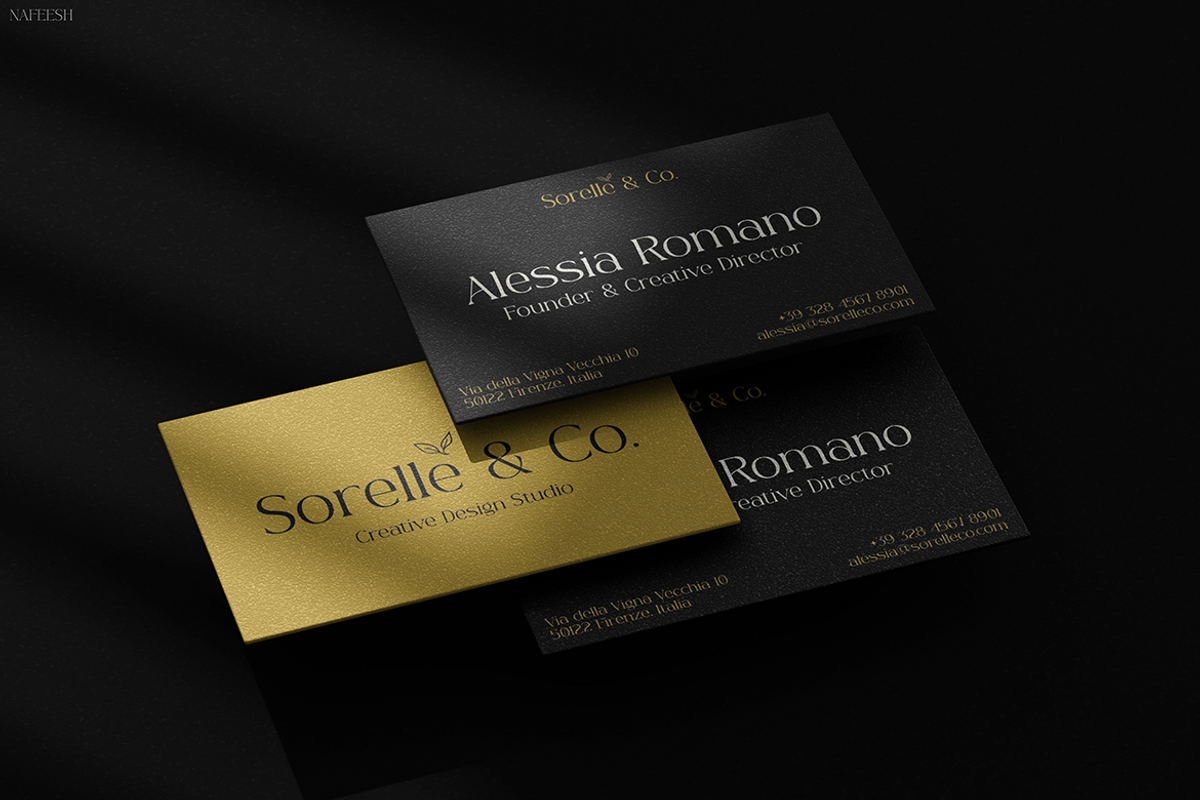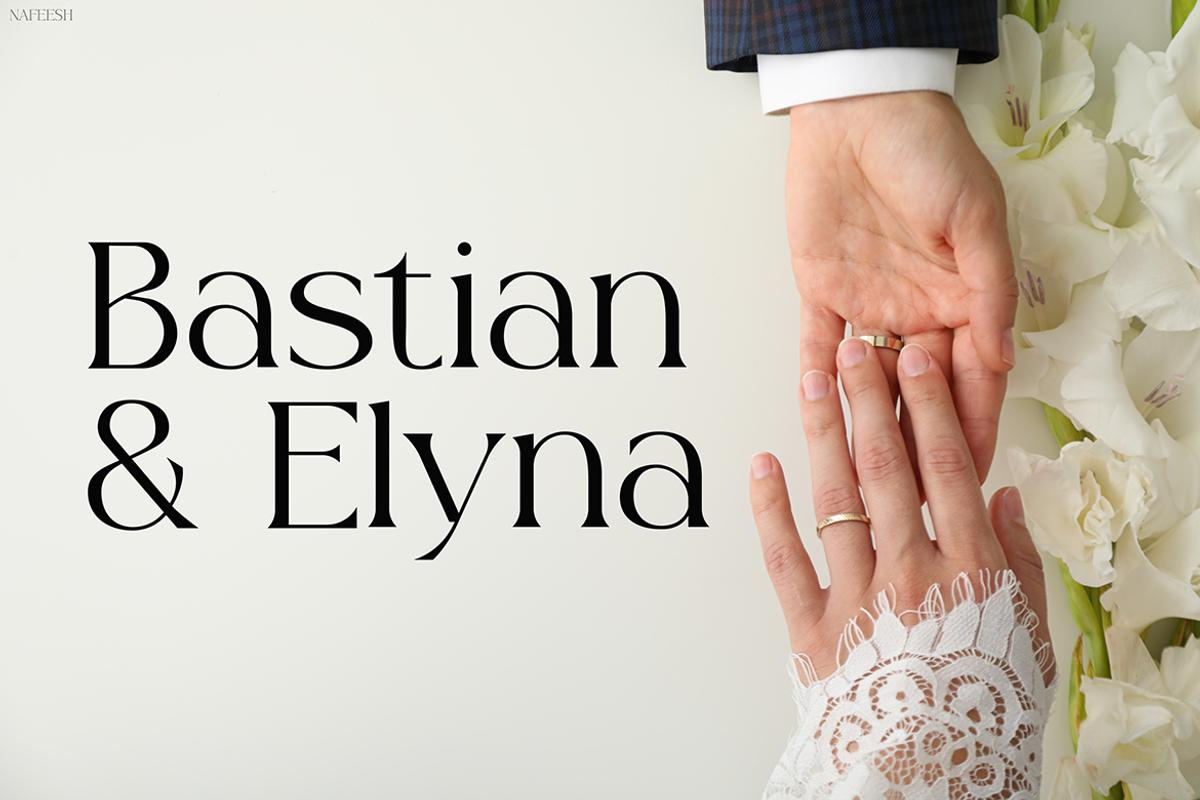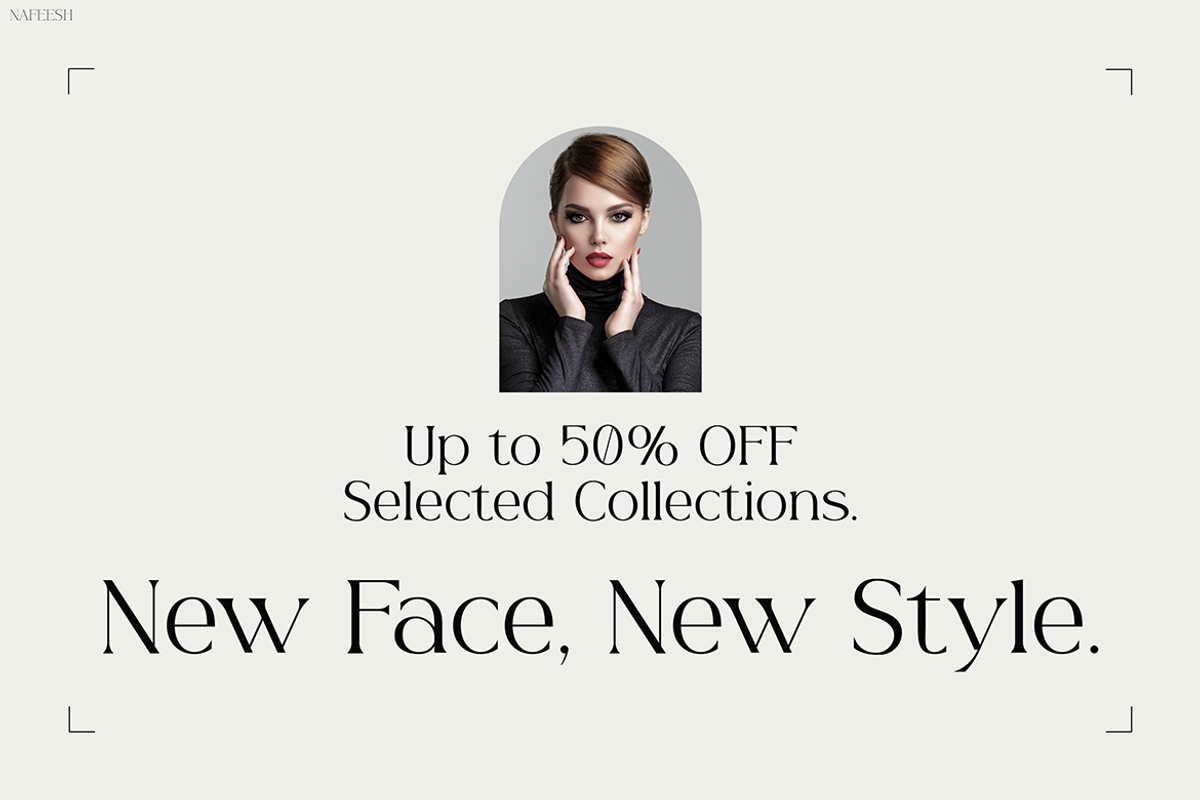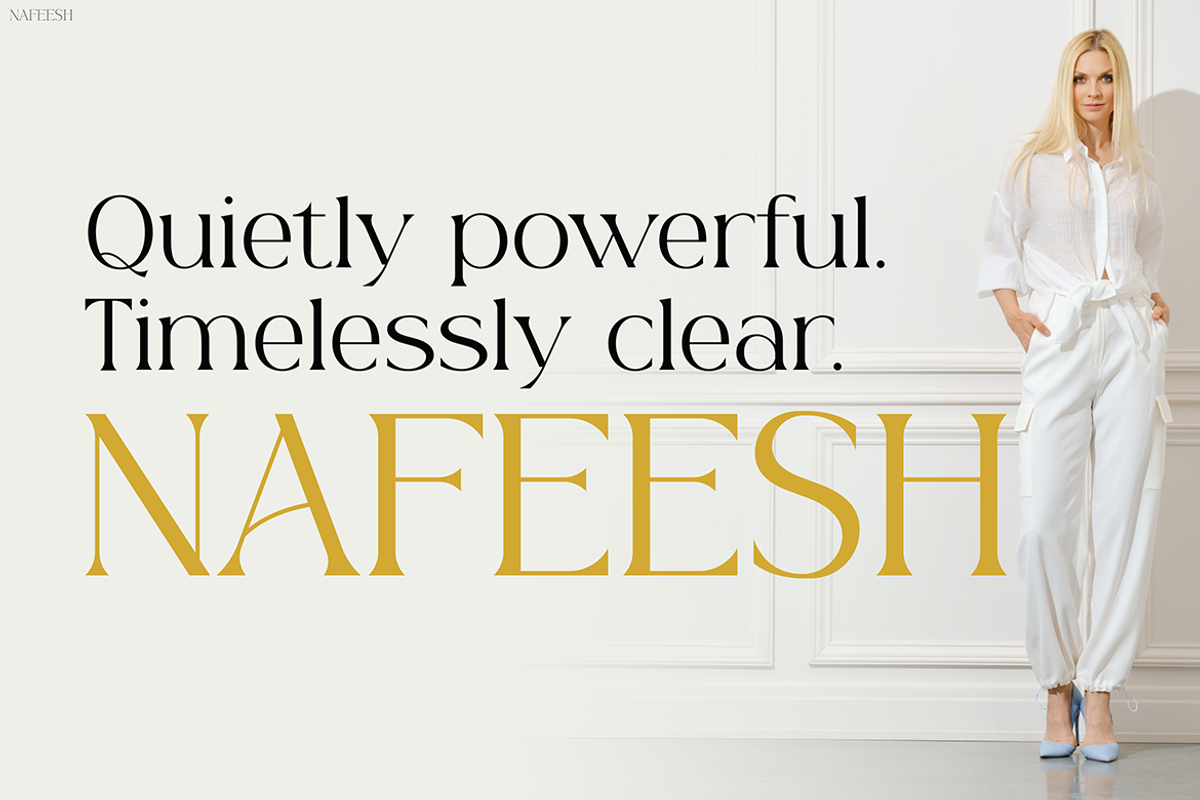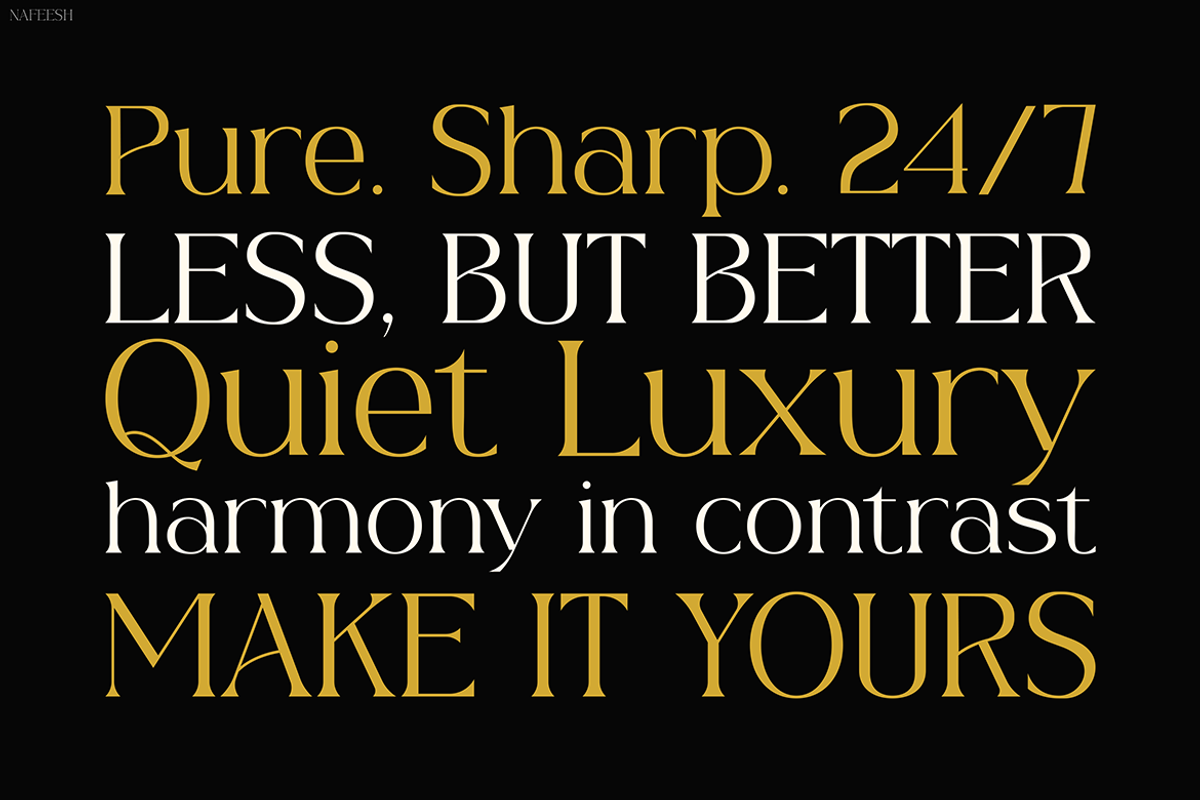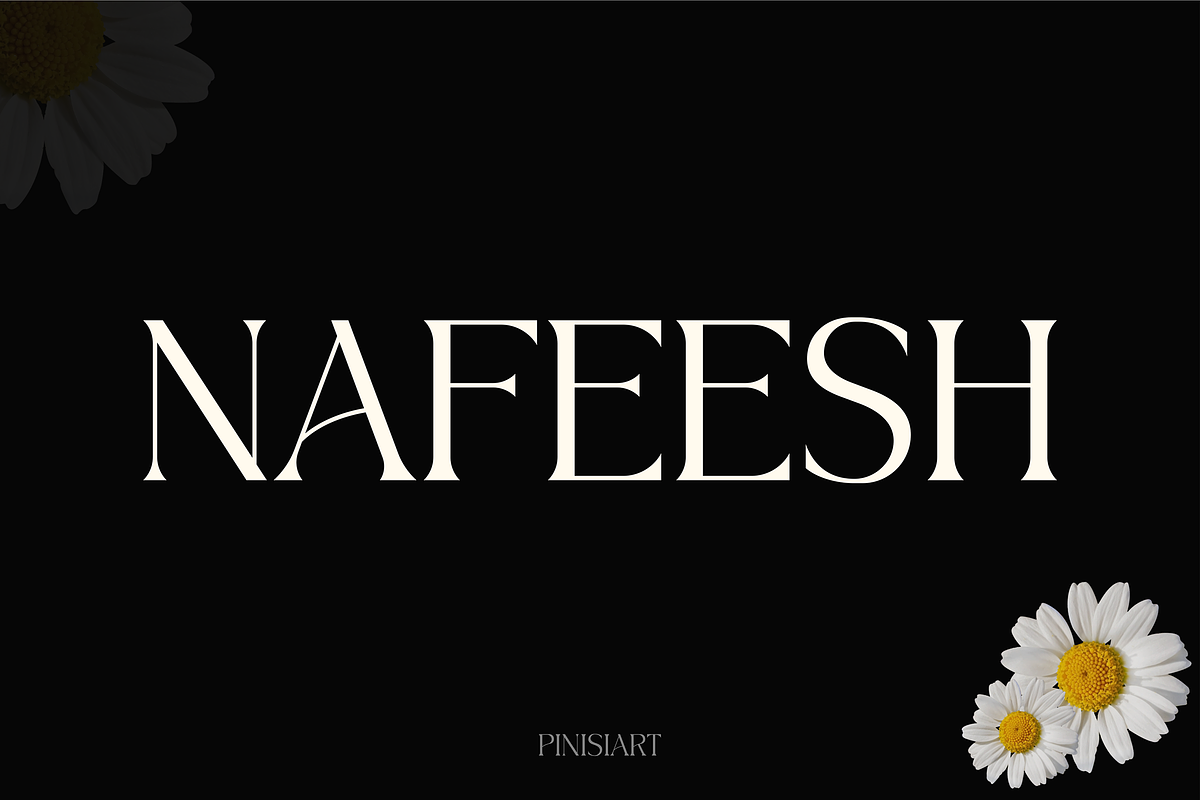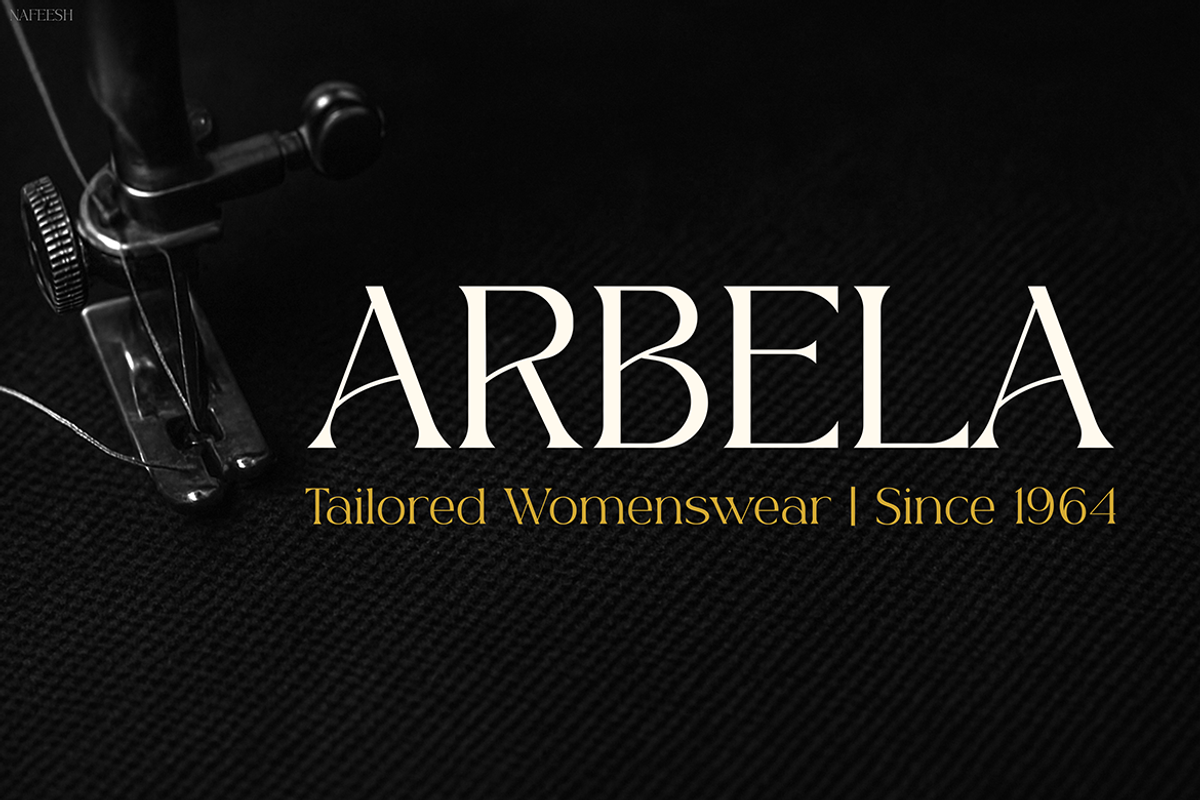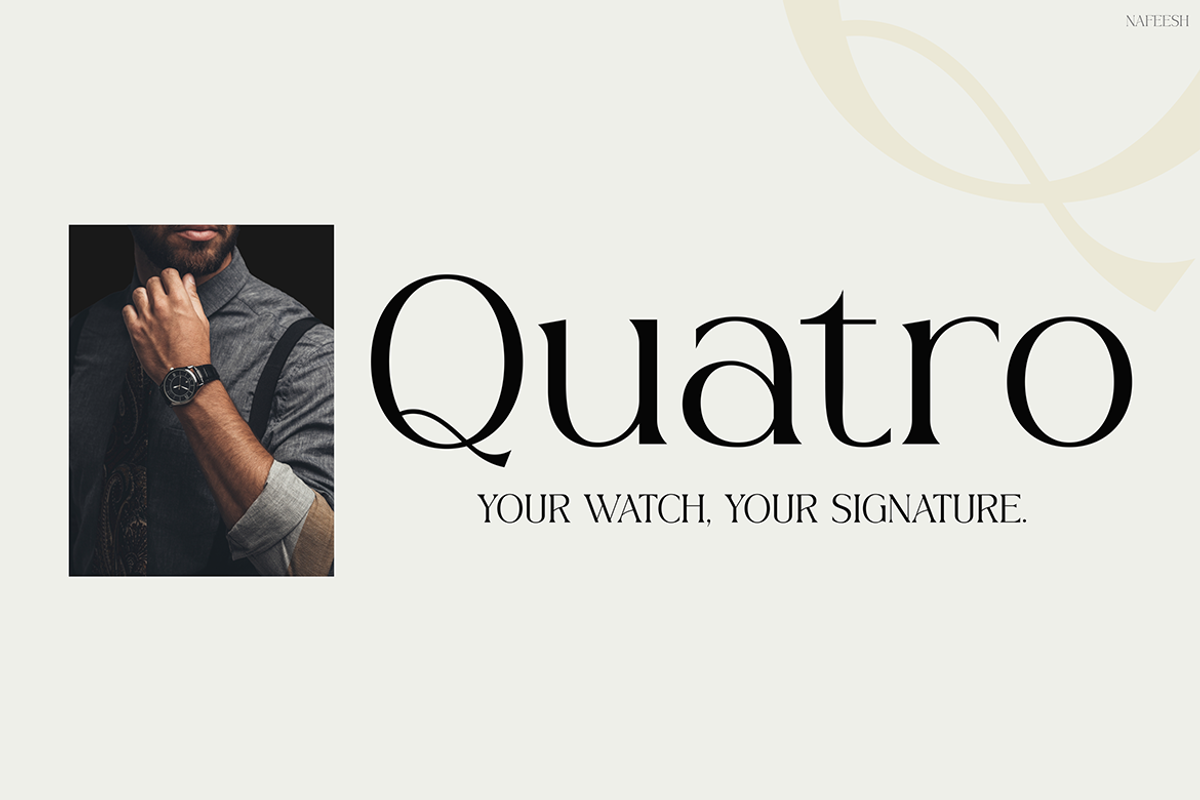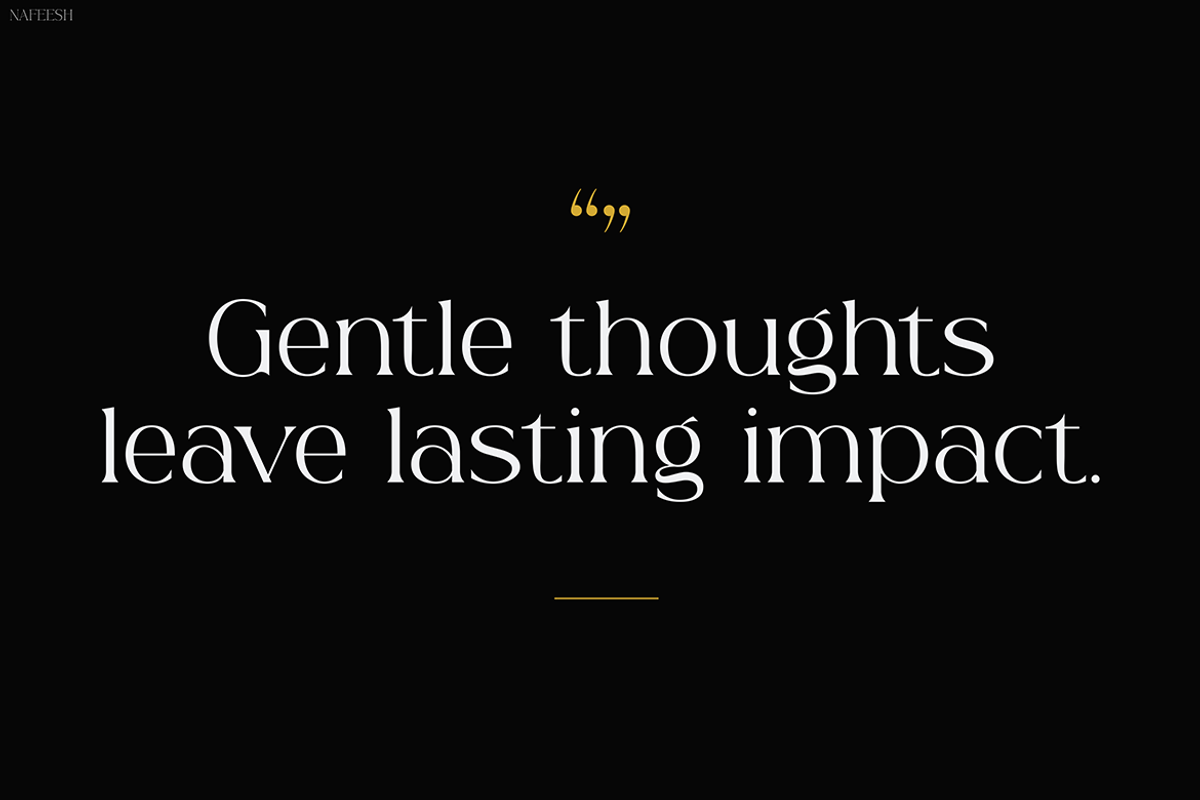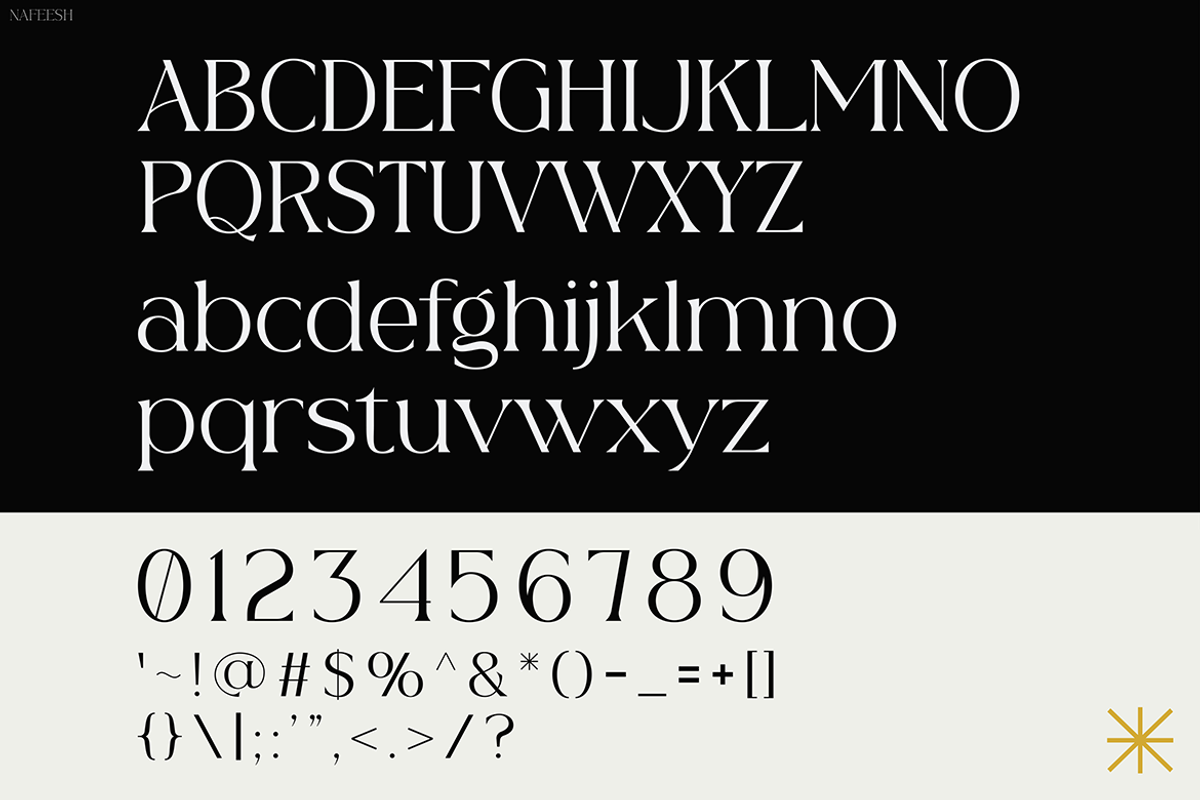
Nafeesh
Instagram Font Nafeesh – Elegant Contrast Serif for Branding & Fashion
Instagram Font Nafeesh is a refined serif font that blends timeless elegance with a clean, modern feel. Designed with high contrast strokes and graceful curves, it adds instant sophistication to any layout. Its balanced proportions and gentle character strokes offer a luxurious tone, perfect for premium content.
The beauty of Nafeesh lies in its harmony—strong serifs meet delicate terminals, creating a unique aesthetic that feels both modern and classic. This font is highly legible, making it excellent for both short headlines and longer subtexts. Its minimal yet expressive style helps you create a lasting impression.
Nafeesh includes uppercase and lowercase letters, numerals, punctuation, and a versatile character set. Whether you’re designing Instagram carousels, business cards, or product packaging, this font ensures your message looks stylish and professional.
From soft-toned branding to high-end editorial spreads, Nafeesh adapts effortlessly. Its sleek appearance works beautifully in muted color palettes, black-and-white themes, or even bold gold accents. Every letterform is designed to be elegant, structured, and visually striking.